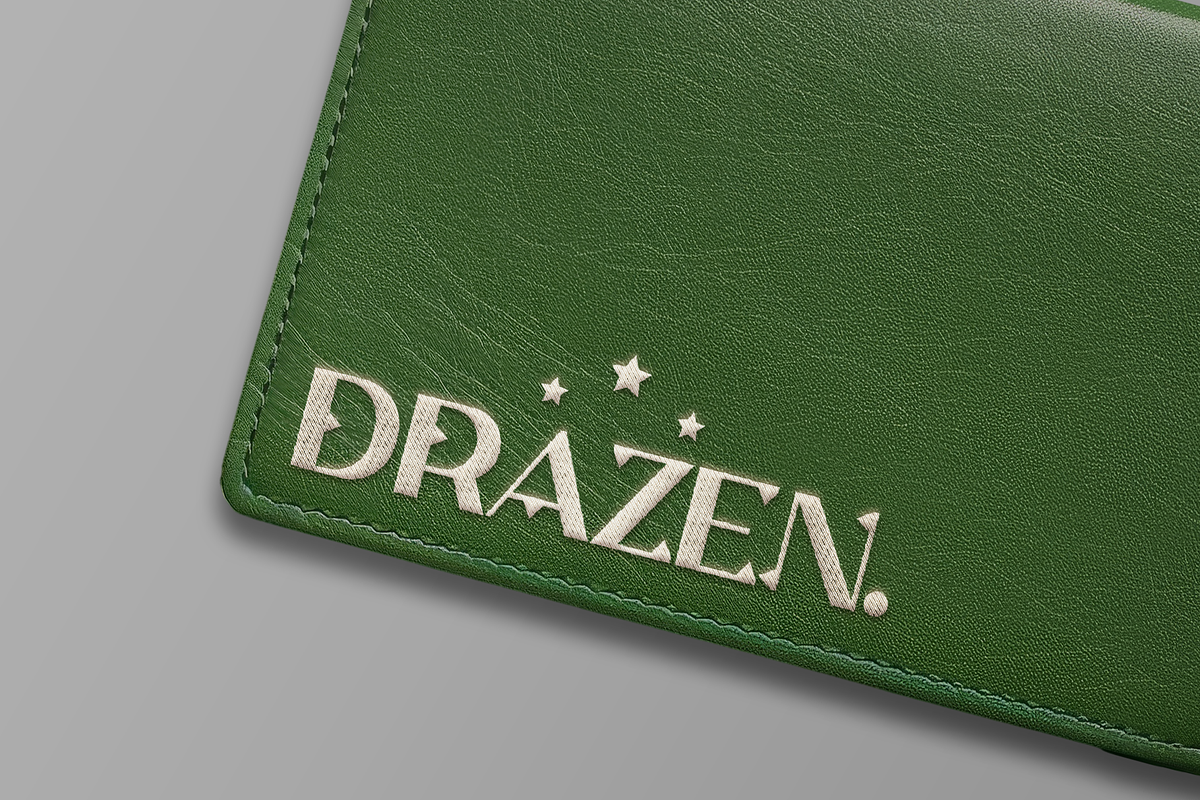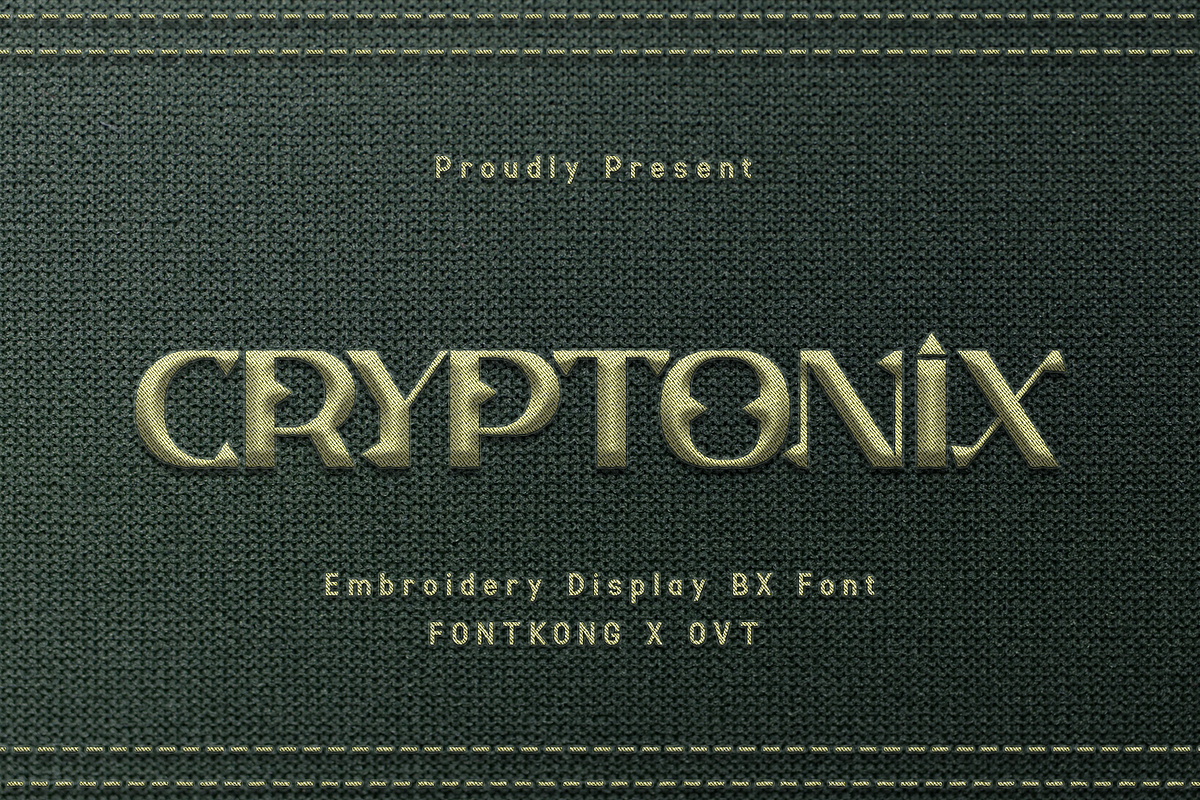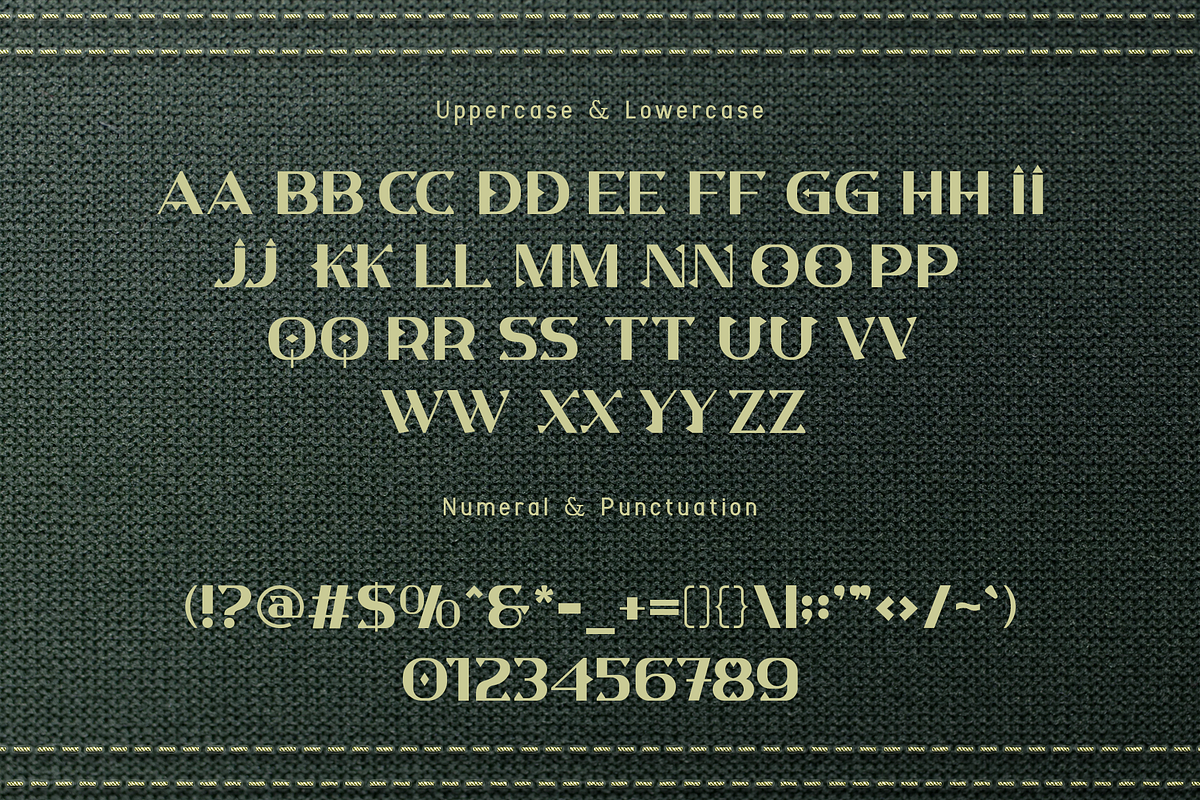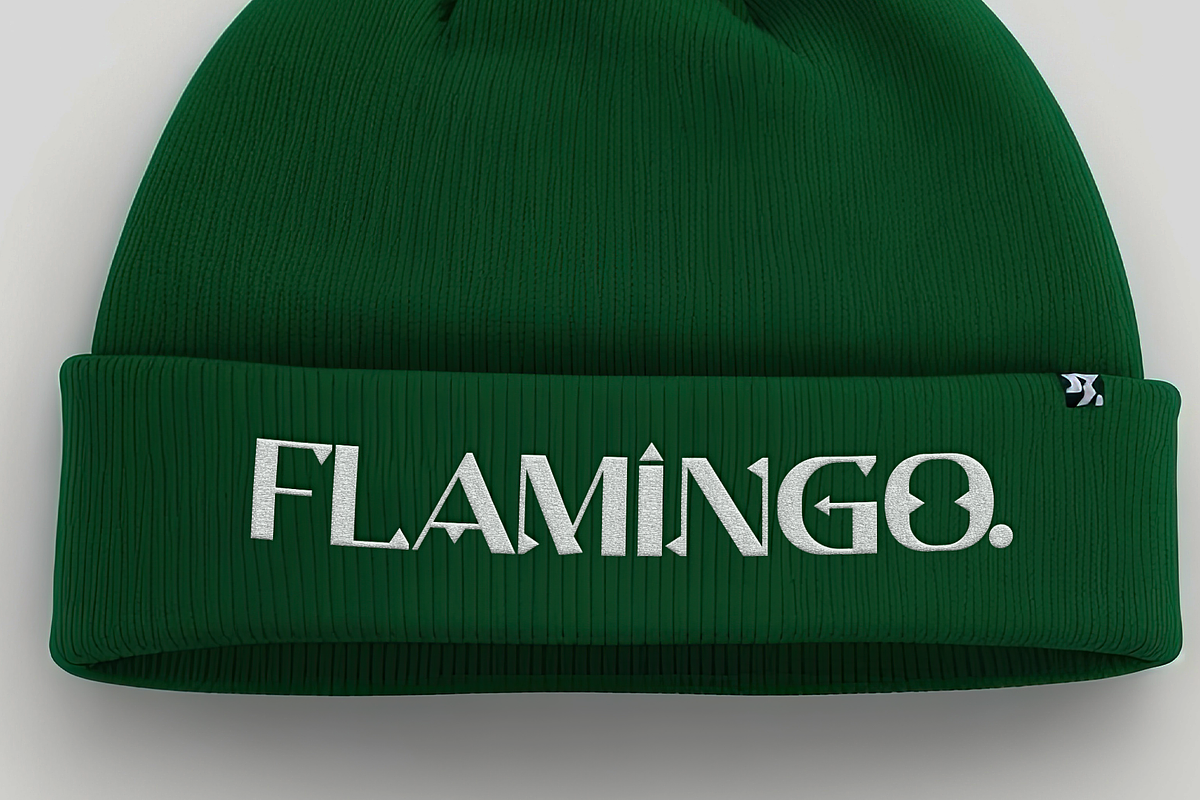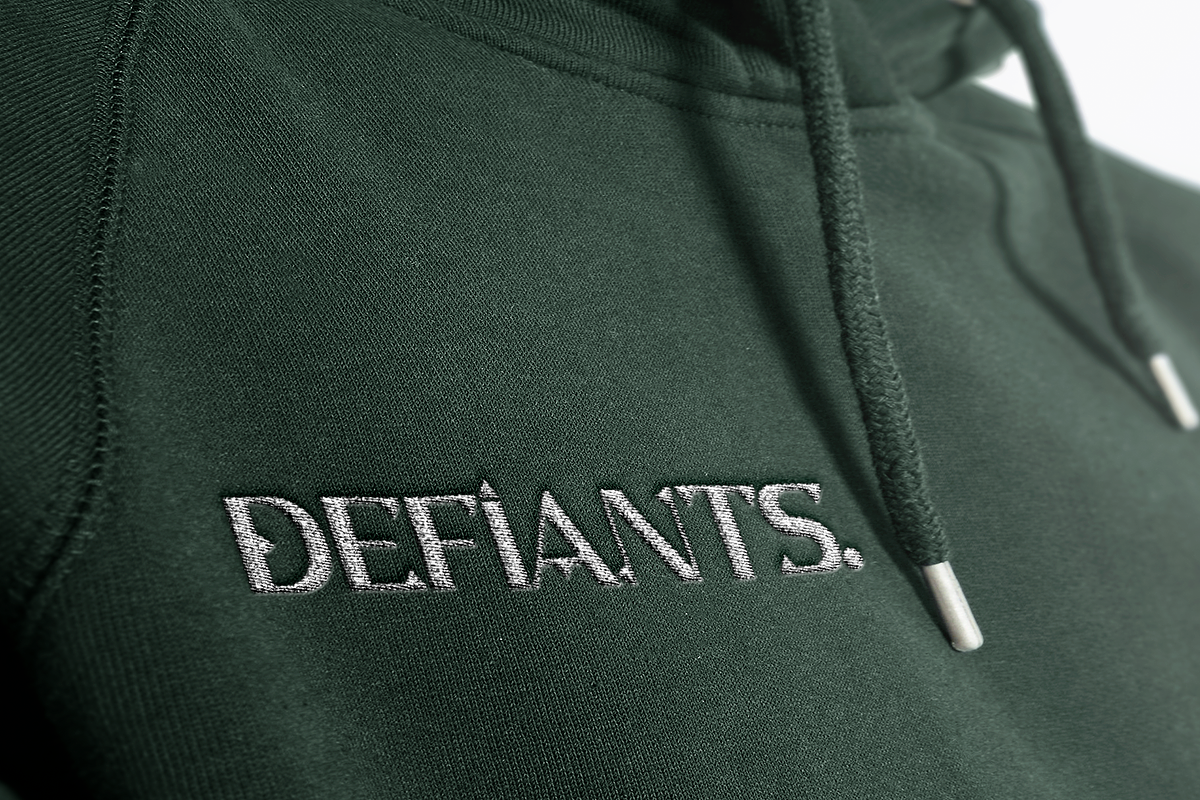
Cryptonix-Embroidery Display BX Font
Cryptonix - Embroidery Display BX Font
Introducing "Cryptonix," an embroidery display BX font designed to make bold statements with precision and style. Perfect for designers and crafters who want to add a striking and modern touch to their projects, Cryptonix combines the intricate art of embroidery with contemporary display typography.
Expertly crafted, Cryptonix is ideal for a variety of creative applications including apparel design, branding, posters, and home decor. Each letter features detailed stitching that replicates the texture and depth of hand-embroidered lettering, providing a unique and eye-catching aesthetic.
The "Cryptonix" font includes a full set of uppercase and lowercase letters, numbers, and punctuation marks, ensuring versatility and flexibility for all your design needs. Whether you’re creating standout logos or decorative accents, Cryptonix enhances your projects with its bold and dynamic embroidery-inspired typography.
Elevate your designs with the precision and boldness of Cryptonix, an embroidery display BX font that makes every stitch count.